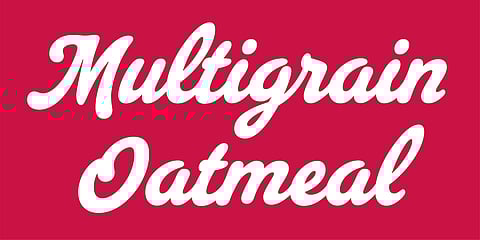
WK Kellogg Co, the North American food company stemming from Kellogg Company's recent division, unveils a bespoke typeface designed to pay homage to its founder, Will Keith Kellogg. It partners with XYZ Type, Plau and Brunswick to craft a bespoke typeface that encapsulates the essence of its celebrated brand.
The creation of the new typeface marks a significant milestone in WK Kellogg Co's journey toward redefining its visual identity post-separation from Kellogg Company.
Harlie Brindak, Creative Director at Brunswick Creative, expresses gratitude for the collaborative process, stating, "XYZ was an incredible partner throughout this process. In this particular case, we were working from a singular point of reference, and a globally recognised one at that: the current Kellogg’s logo. And while it’s distinctive, there was much to be defined for the typeface. Through their research, imagination, and skill, they were able to build a completely natural and beautiful script that feels as though it’s always existed. I can’t thank them enough."
The development of the custom typeface involved meticulous research and collaboration with Rodrigo Saiani from Plau. Drawing inspiration from Kellogg's packaging and advertising history, the team delved into vintage lettering and sign-painting manuals from the early 20th century to capture the essence of the brand's iconic logo.
Designing a script typeface that remained faithful to the Kellogg's legacy while ensuring legibility posed a unique challenge. With a focus on maintaining clarity and authenticity, the team navigated various design decisions, including adjustments to the iconic 'K' and crafting lowercase letters that complemented the logo's dynamic aesthetic.
For Ben Kiel from XYZ, the ultimate goal is practicality. The typeface must excel in real-world scenarios, from corporate presentations to packaging labels, without relying on intricate OpenType features. By prioritising usability alongside aesthetics, the team ensures that the font's impact extends far beyond the cereal box.
As the new typeface takes its place in WK Kellogg Co's branding arsenal, it pays homage to the brand's storied legacy while embracing the demands of a modern audience.
Project oversight: Stacy Flathau (Chief Corporate Affairs Officer, WK Kellogg Co)
Design agency: Brunswick Group
Creative direction: Harlie Brindak (Brunswick Group)
Type direction: Ben Kiel, Jesse Ragan (XYZ Type)
Typeface design: Rodrigo Saiani (Plau)
Lettering assistance: Mariana Navarro (Plau)